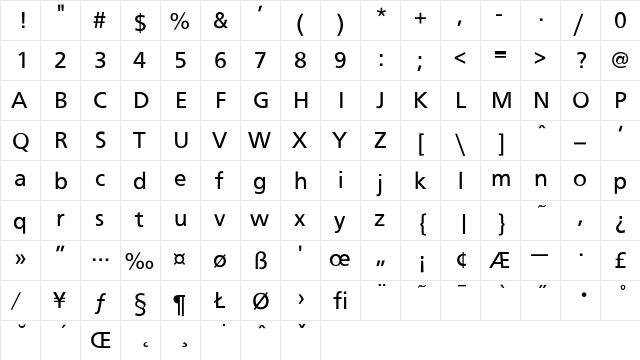
Roissy-Normal Regular
Design Context for Roissy-Normal Typeface
Roissy-Normal takes a measured approach to typography — its balanced proportions and neutral character make it a reliable workhorse for both digital and print work.